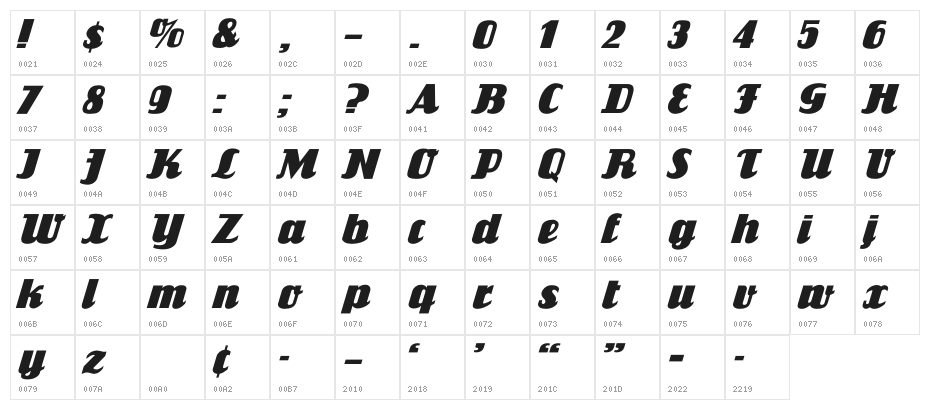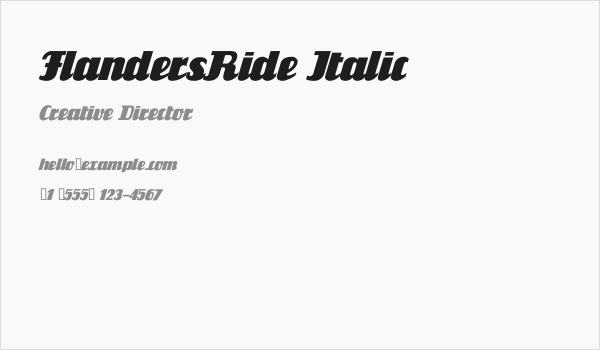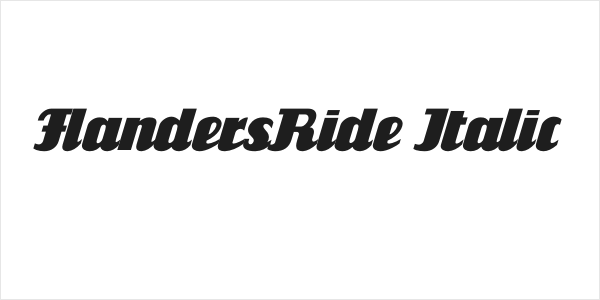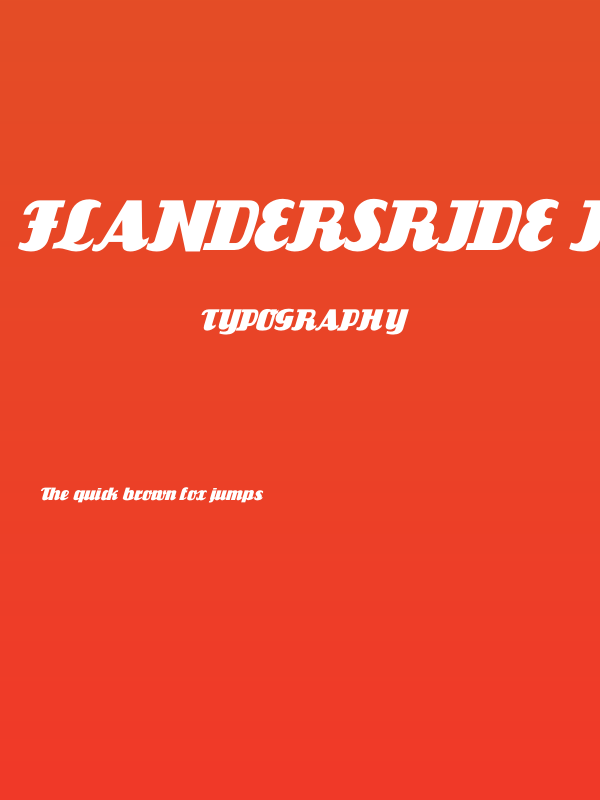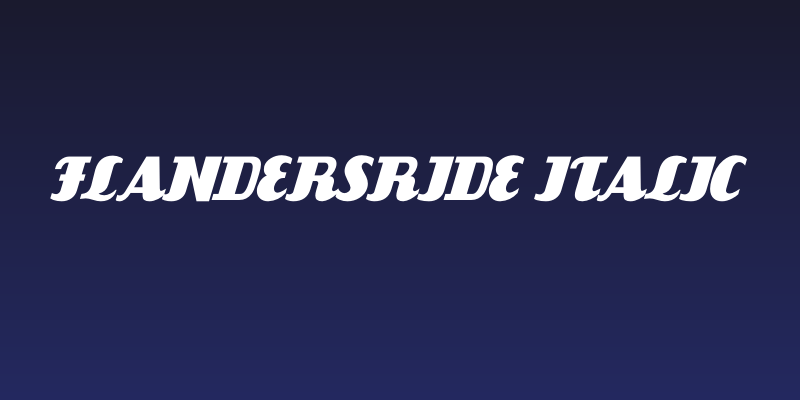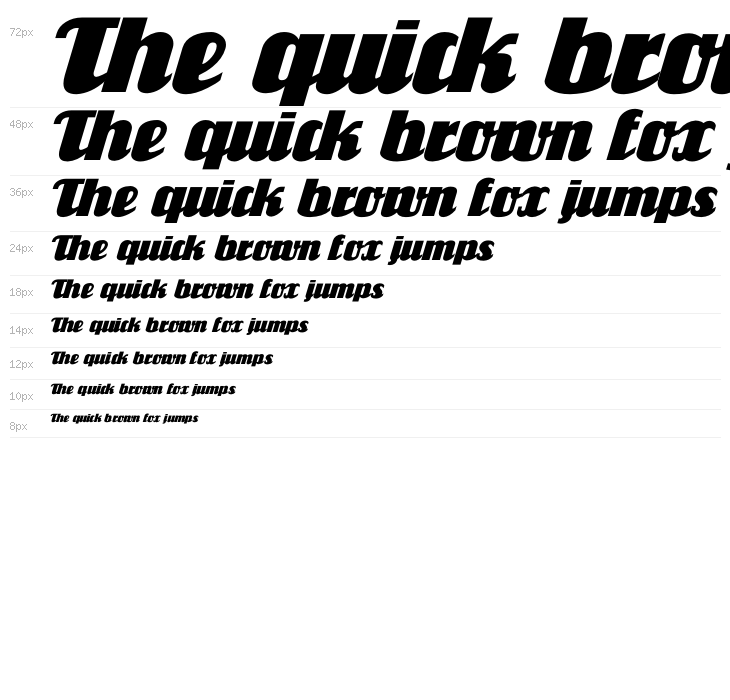
FlandersRide Italic Font
FlandersRide Italic Description
This font features a bold, italicized style with a strong presence. The characters are slanted, adding a dynamic and energetic feel. The strokes are thick, providing a high contrast that enhances readability and impact. The uppercase and lowercase letters maintain a consistent style, with smooth curves and sharp edges that give it a modern yet classic appearance. The numerals and special characters are designed to match the boldness and slant of the letters, ensuring uniformity across all text. This font is ideal for making statements, with its eye-catching and assertive design.
| Proposed Projects | Ideal for branding, headlines, posters, and advertising where a strong, impactful presence is needed. |